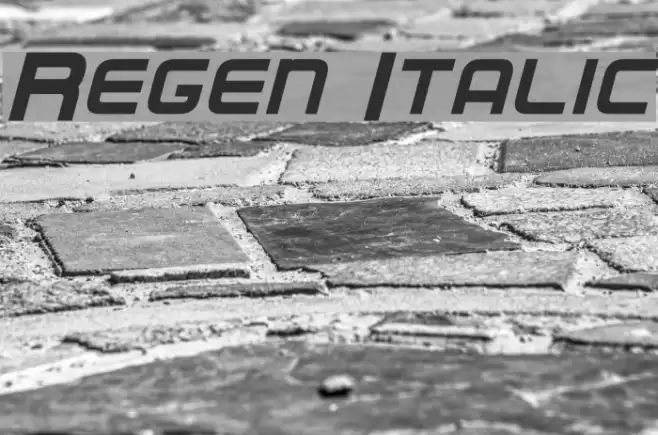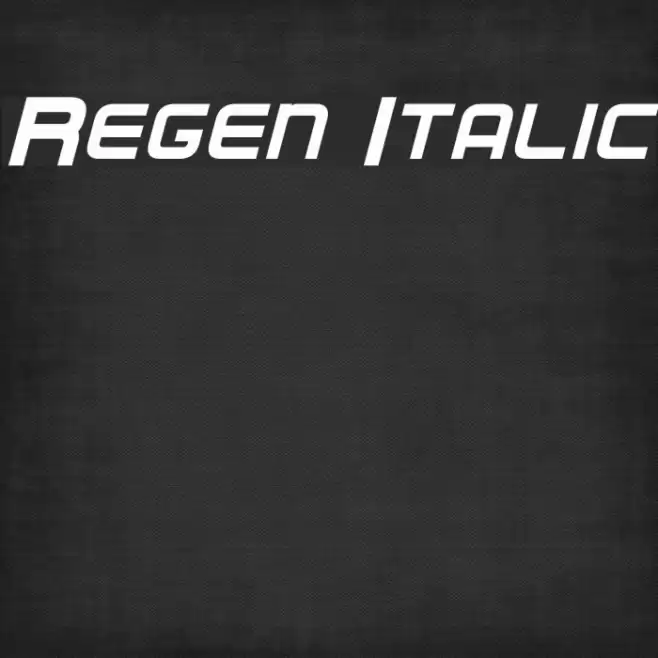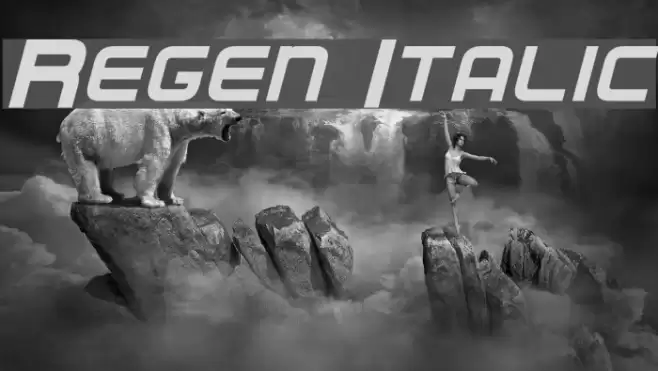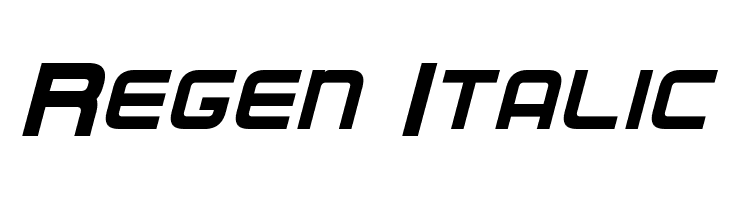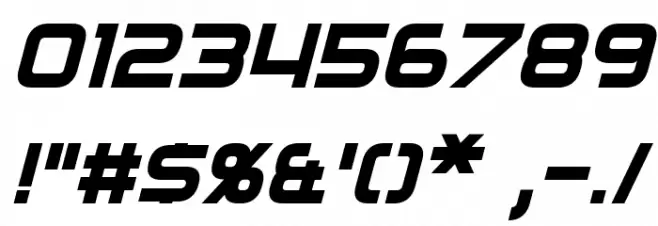
Regen Italic Font
Regen Italic Description
This font features a sleek, italicized design with a modern and dynamic appearance. The characters are slightly slanted, giving a sense of motion and speed. The strokes are consistent in thickness, providing a uniform look across all characters. The font maintains a clean and professional aesthetic, making it suitable for a variety of applications. The numbers and special characters are designed to match the style of the letters, ensuring a cohesive look. The overall design is both functional and visually appealing, making it a versatile choice for various design projects.
A sleek, italicized font with a modern and dynamic style from Uncategorized fonts.
- Proposed Projects: Ideal for branding, advertising, sports-related designs, and modern web design projects.
- Use Case: Headlines, Logos, Advertising